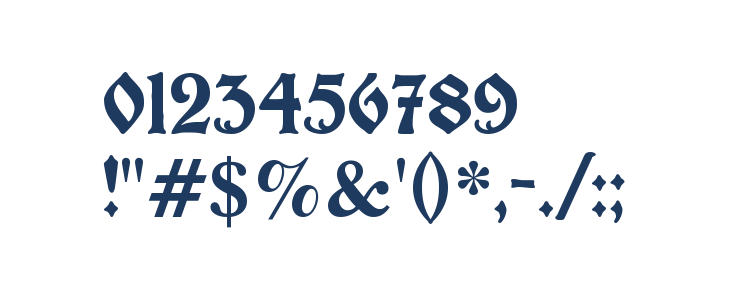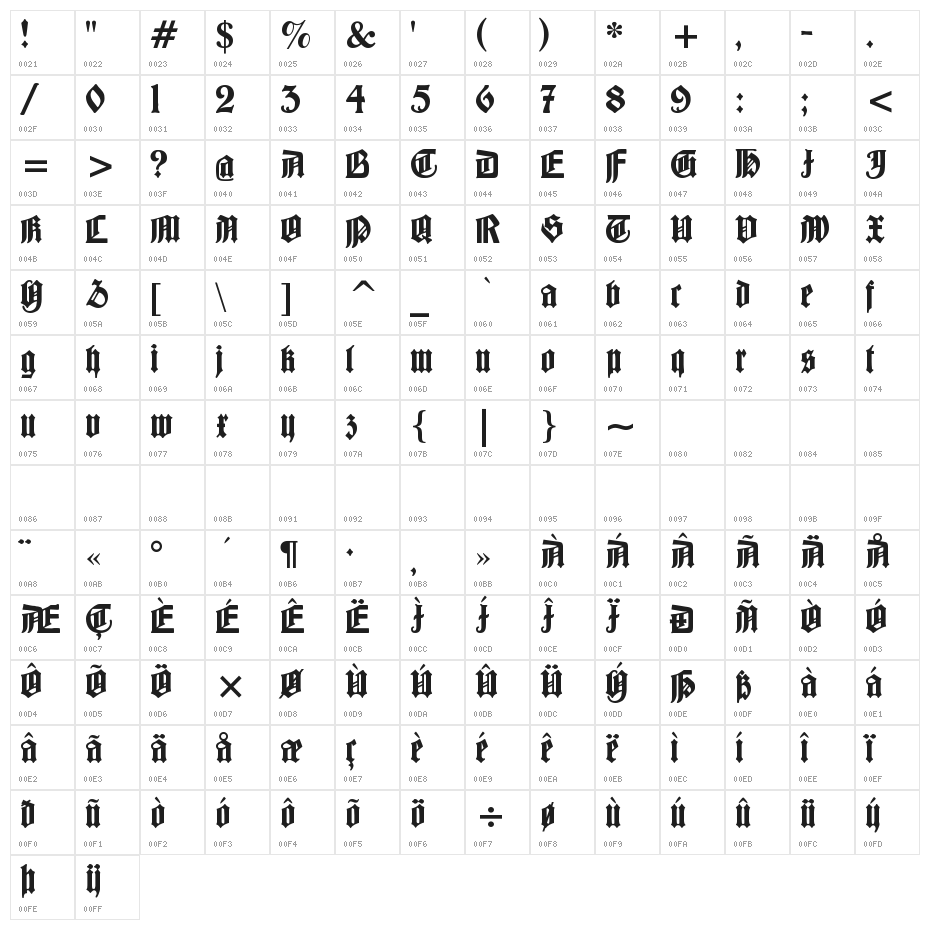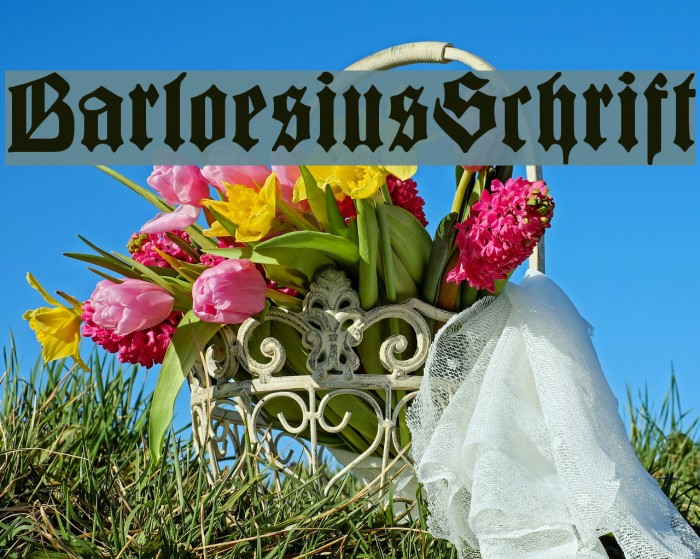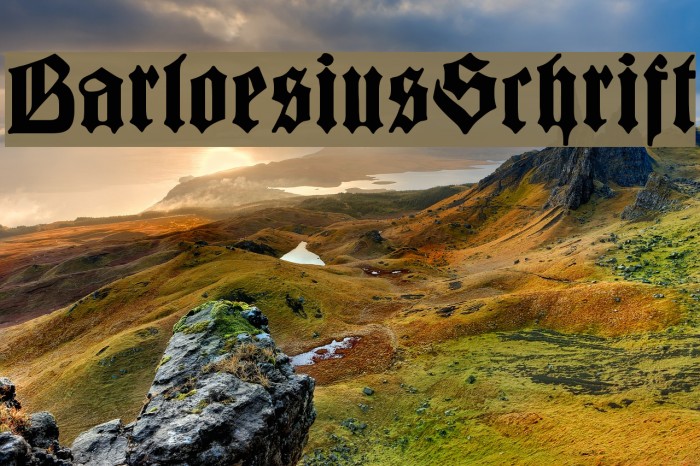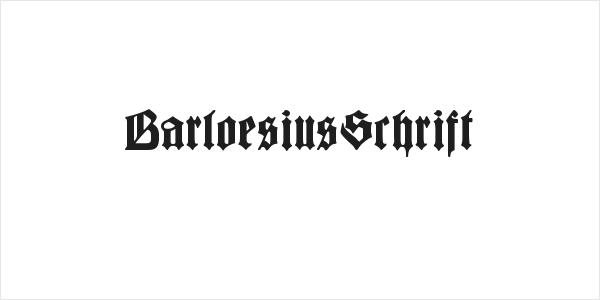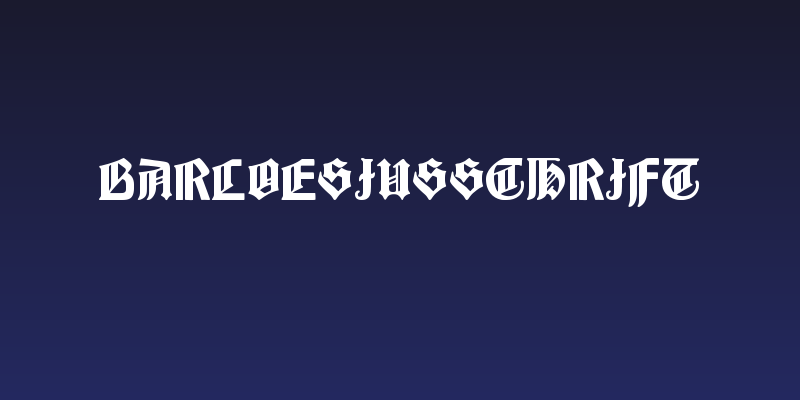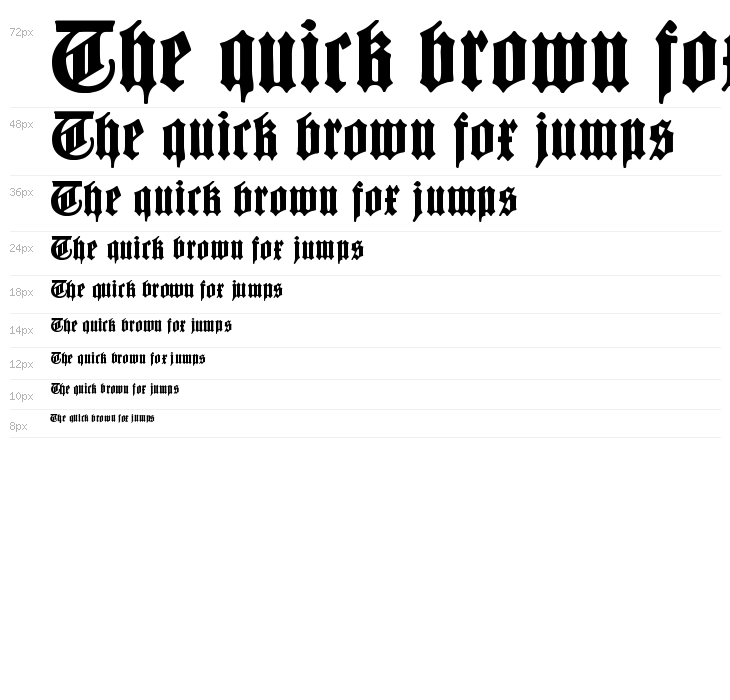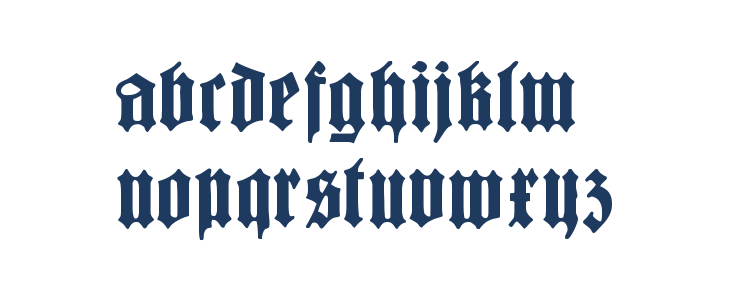
BarloesiusSchrift Font
BarloesiusSchrift Description
This font exhibits a classic Blackletter style, characterized by its intricate and bold strokes. The uppercase letters are ornate with sharp angles and dramatic curves, reminiscent of medieval script. The lowercase letters maintain the same decorative flair, with a consistent stroke weight that adds to the font's bold appearance. The numerals are equally stylized, featuring unique flourishes that enhance their visual appeal. Special characters are designed to match the overall aesthetic, making this font suitable for projects that require a historical or gothic touch.